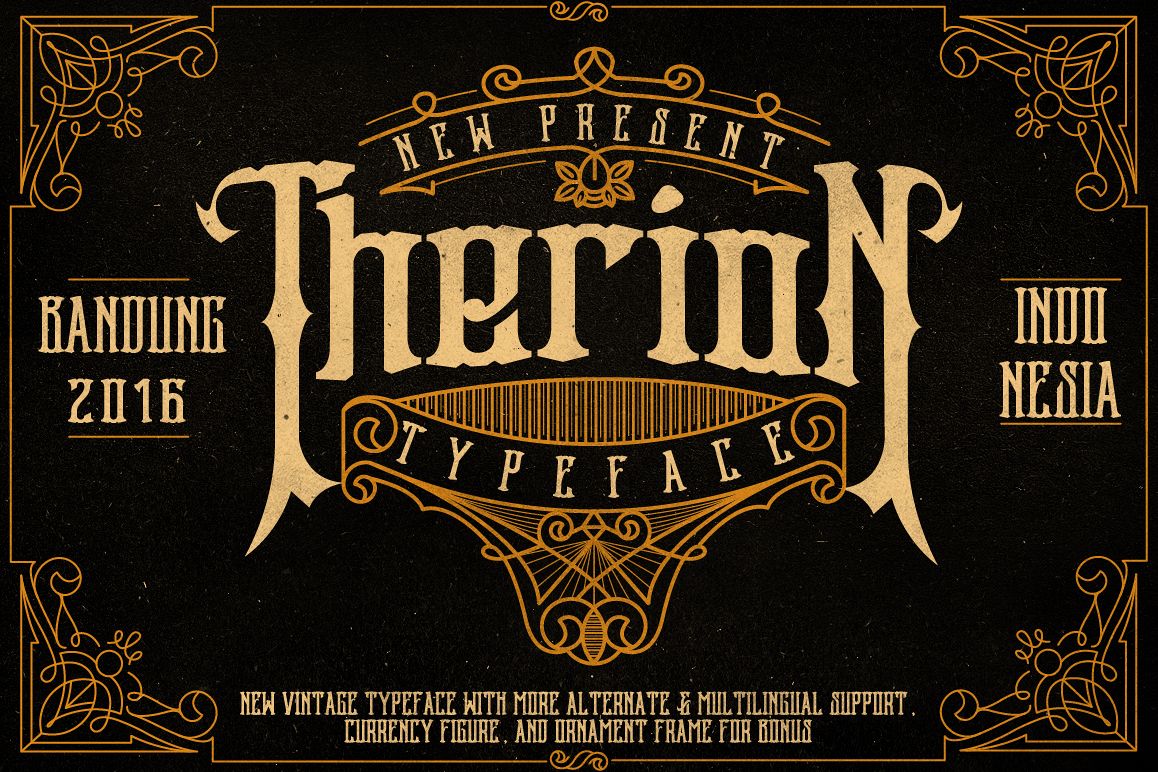
Therion Typeface + Ornament Bonus
Therion Typeface is a vintage font with a modern twist. With lots of alternatives and ornaments this font is perfect for a variety of projects where you require that vintage touch.